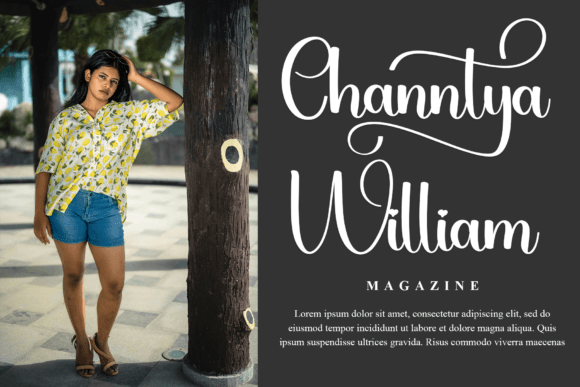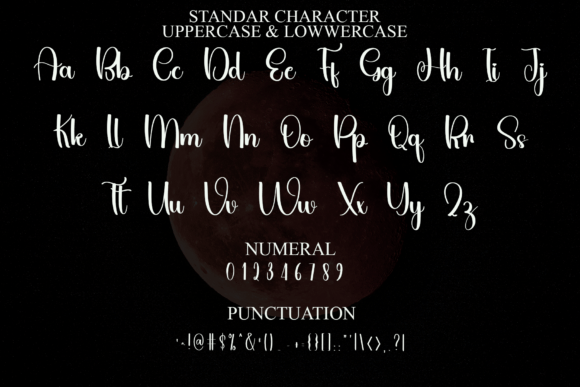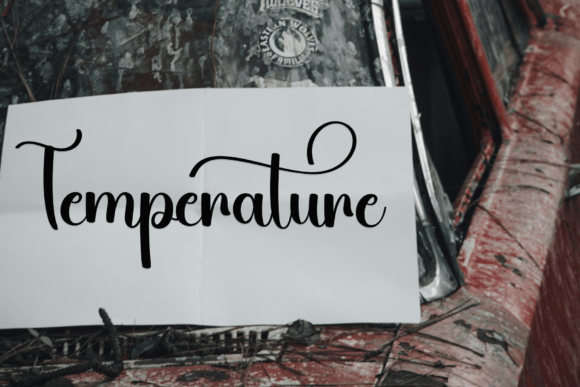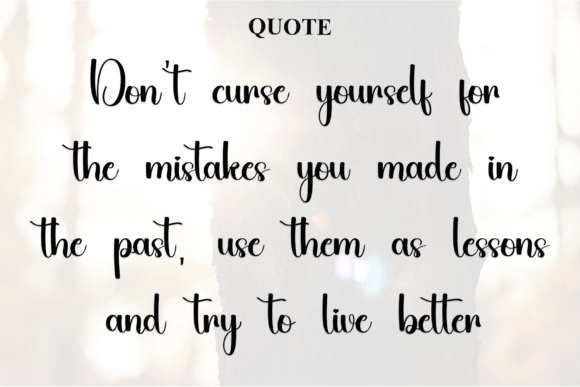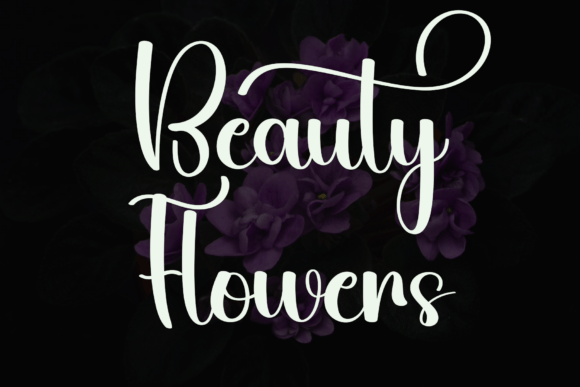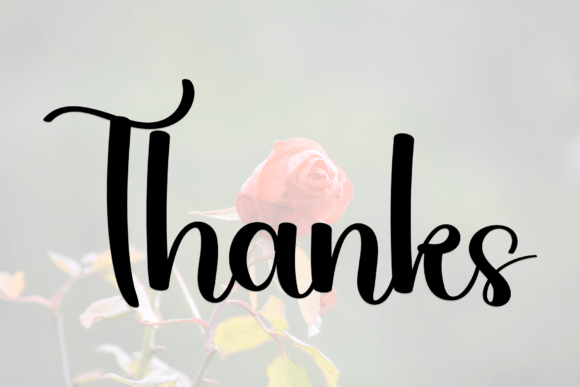
Unlock the Magic of Beautiful Typographic Design
As a designer, have you ever found yourself staring at a blank page, searching for the perfect font to bring your vision to life? You know the feeling – it’s like waiting for the perfect brushstroke to complete a masterpiece. That’s where Beautiful Darling Font comes in – a stylish and elegant typeface that’s sure to elevate your projects and leave a lasting impression.
With its contemporary atmosphere and impeccable form, inspired by timeless classic calligraphy, Beautiful Darling Font is the perfect choice for designers who crave sophistication and elegance. Its balanced and varied design makes it versatile enough to be used in a wide range of projects, from fashion and beauty to editorial and fine art.
Beautiful Darling Font Key Features
- Font Family: Beautiful Darling is a script font designed to evoke a sense of elegance and sophistication.
- Resolution: Designed to be legible at high resolutions, making it ideal for use in digital and print media.
- Unique Characteristics: Features a unique, hand-drawn design with subtle imperfections, giving it a personal and artistic feel.
- Character Count: Includes a vast character set, including uppercase and lowercase letters, numbers, and punctuation marks.
Designer Review: Beautiful Darling Font
As a designer, I was excited to dive into the Beautiful Darling Font and see what it had to offer. The first thing I noticed was the ✨ elegant and refined feel of the font. It’s perfect for creating a sophisticated and luxurious atmosphere in your designs. The font’s high-end aesthetic makes it ideal for high-end brands, fashion, and beauty industries.
- ✨ Elegant and refined feel
- ✨ Perfect for high-end brands, fashion, and beauty industries
- ✨ Highly legible, even at small font sizes
- ✨ Supports a wide range of languages
- ⚠️ Limited font weights and styles (only 2 font weights and 1 italic style)
- ⚠️ Not suitable for body text or large blocks of text (best used for headings and titles)
- ⚠️ Some characters may not display correctly in certain fonts or browsers
Overall, I think the Beautiful Darling Font is a beautiful addition to any designer’s toolkit. While it may have some limitations, its elegant and refined feel makes it perfect for high-end designs. With a little creativity and experimentation, I’m sure you’ll be able to create some truly stunning designs with this font.
The Beautiful Darling Font is perfect for:
- Photography captions and quotes
To get the most out of the Beautiful Darling Font, remember to:
- Use it sparingly to create a bold, eye-catching effect.
- Pair it with a neutral background to let the font shine.
Alternatives to Beautiful Darling Font
Great Vibes is a modern script font that resembles handwriting. It’s perfect for adding a touch of elegance and sophistication to your designs, especially when used for titles and headings. Great Vibes is more elegant and refined compared to Beautiful Darling Font, which is more playful and quirky.
Carolyna Pro is a high-end script font that features a mix of elegance and sophistication. It’s ideal for use in high-end branding, luxury packaging, and editorial design. Compared to Beautiful Darling Font, Carolyna Pro is more polished and refined, making it suitable for premium brands.
Alex Brush is a beautiful script font that resembles handwritten text. It’s perfect for use in creative projects, such as invitations, greeting cards, and editorial design. Alex Brush is more delicate and refined compared to Beautiful Darling Font, which is more bold and playful.